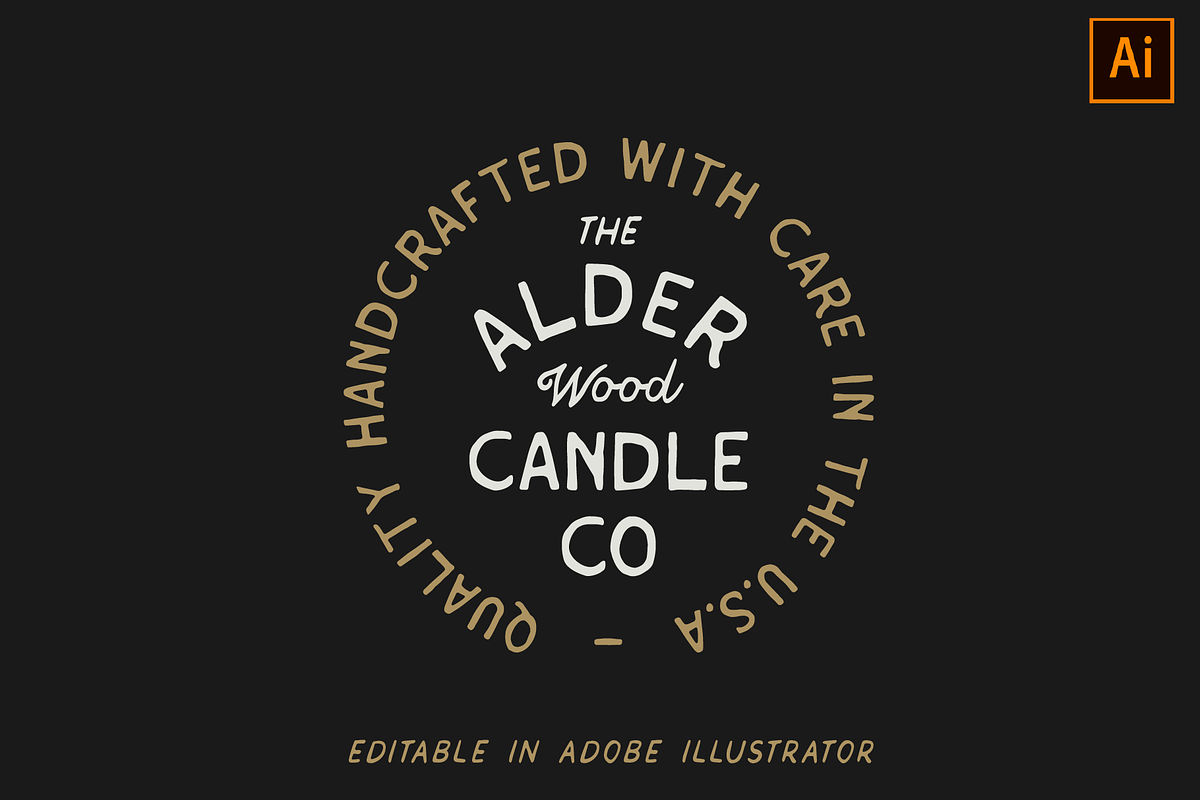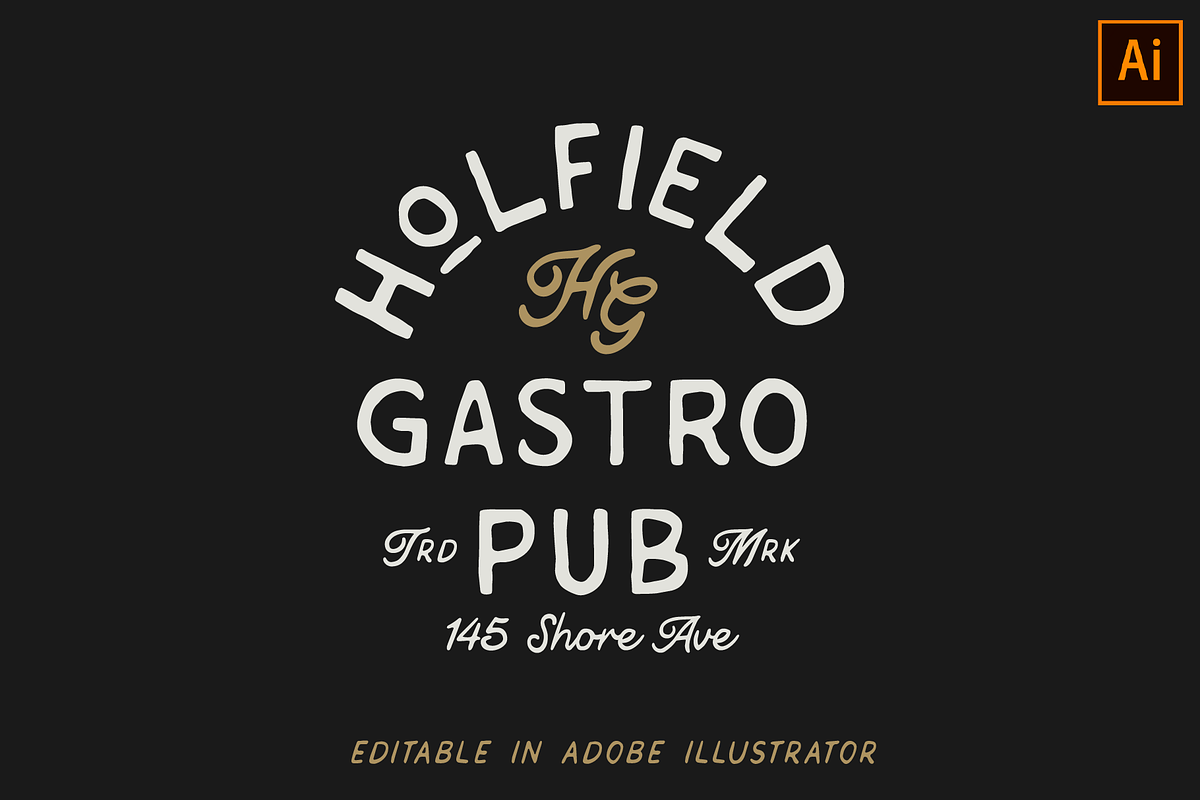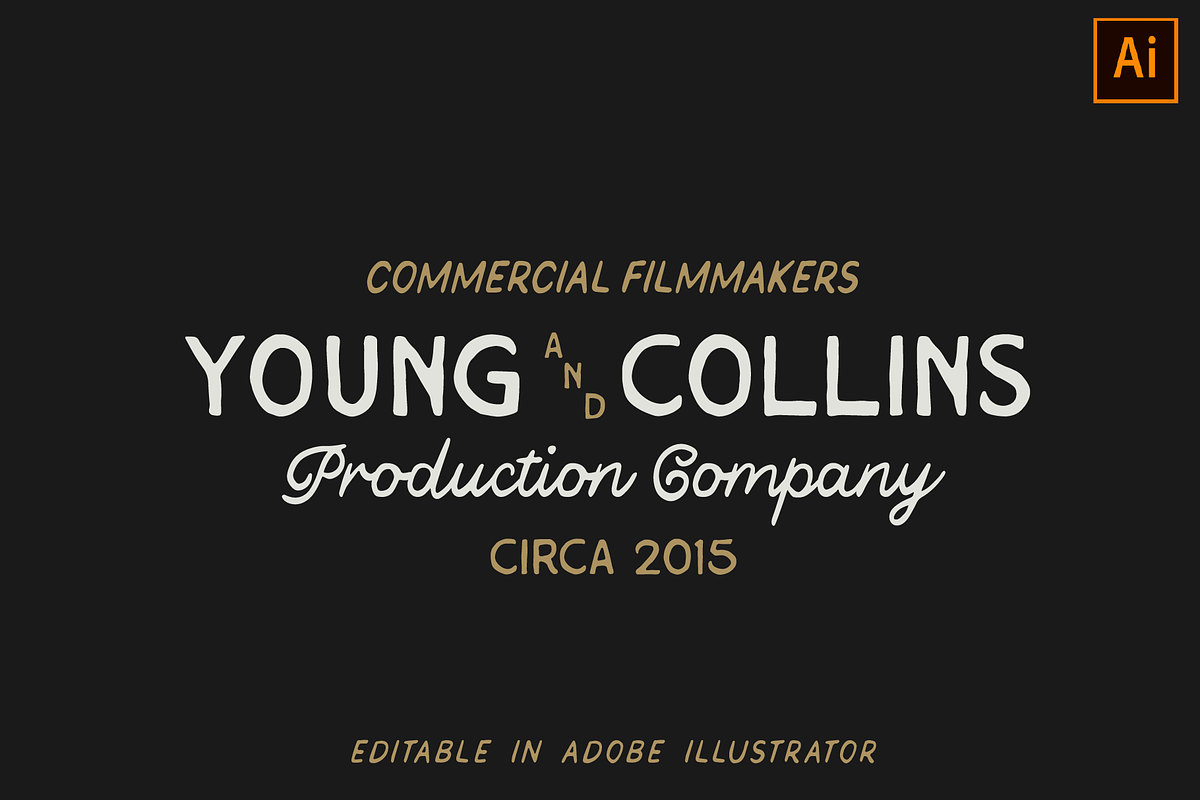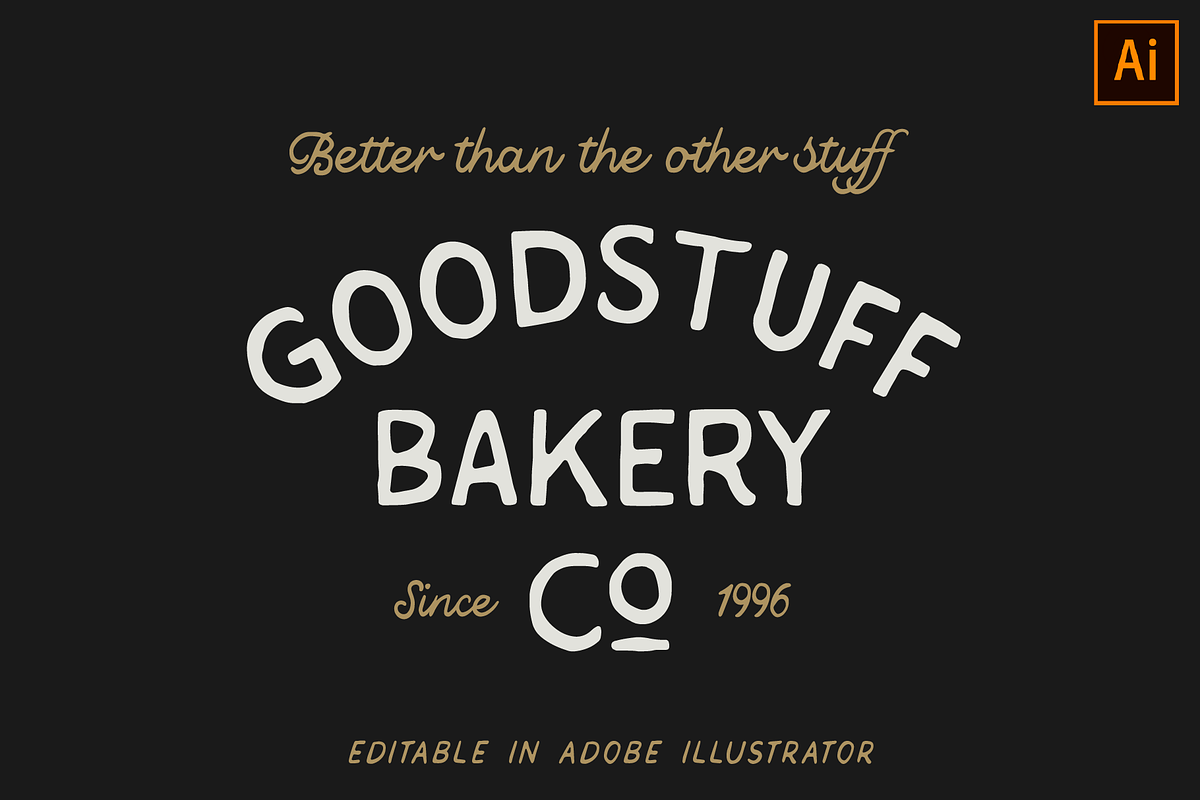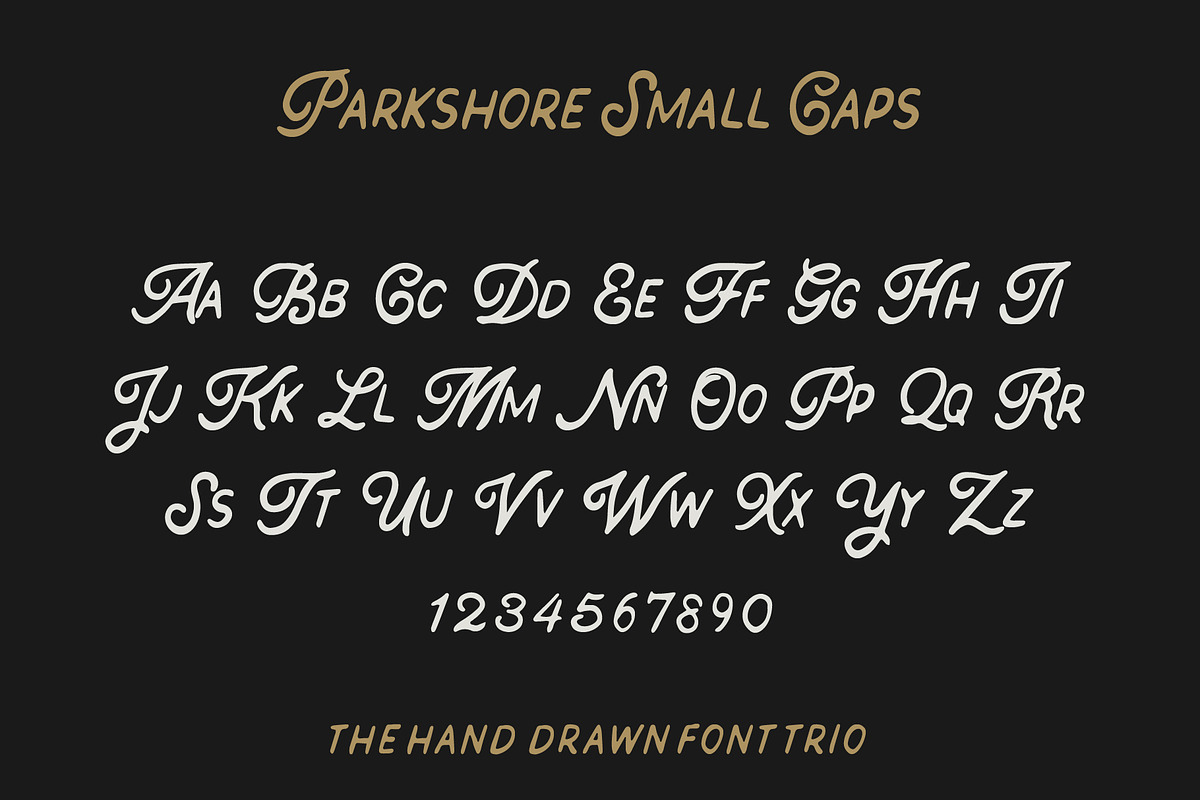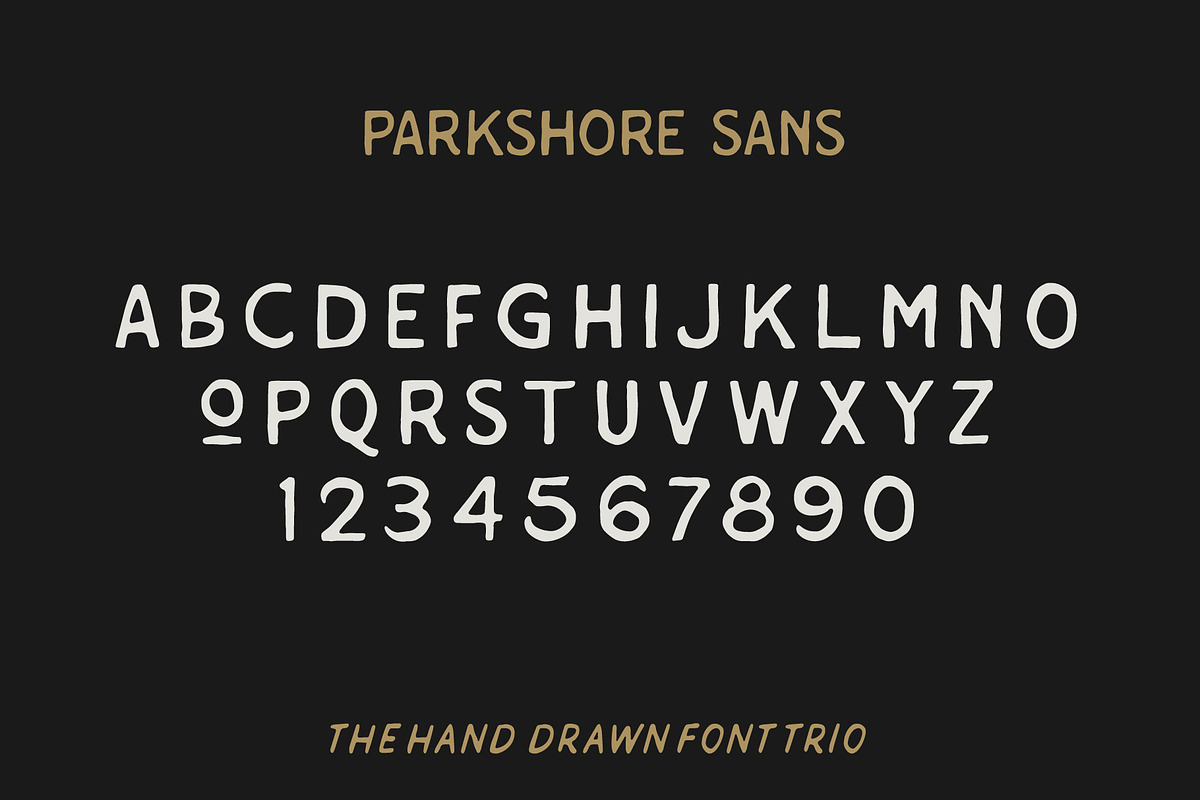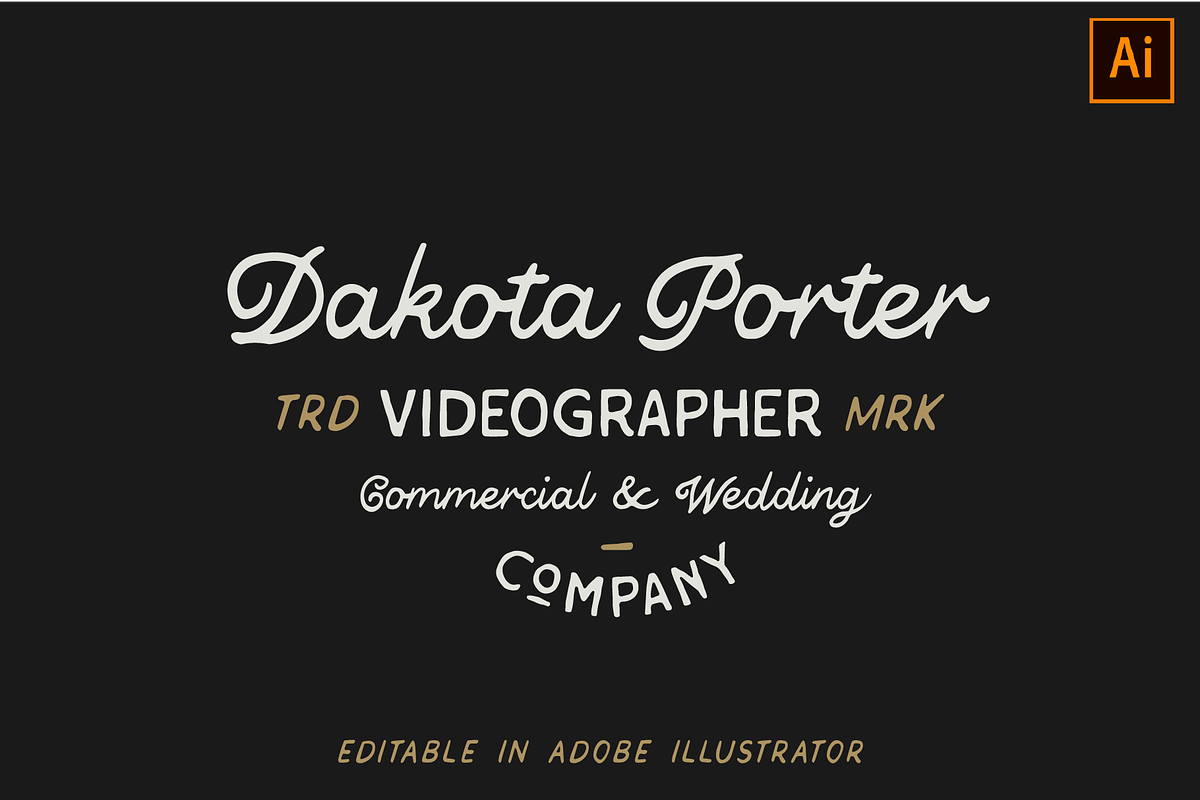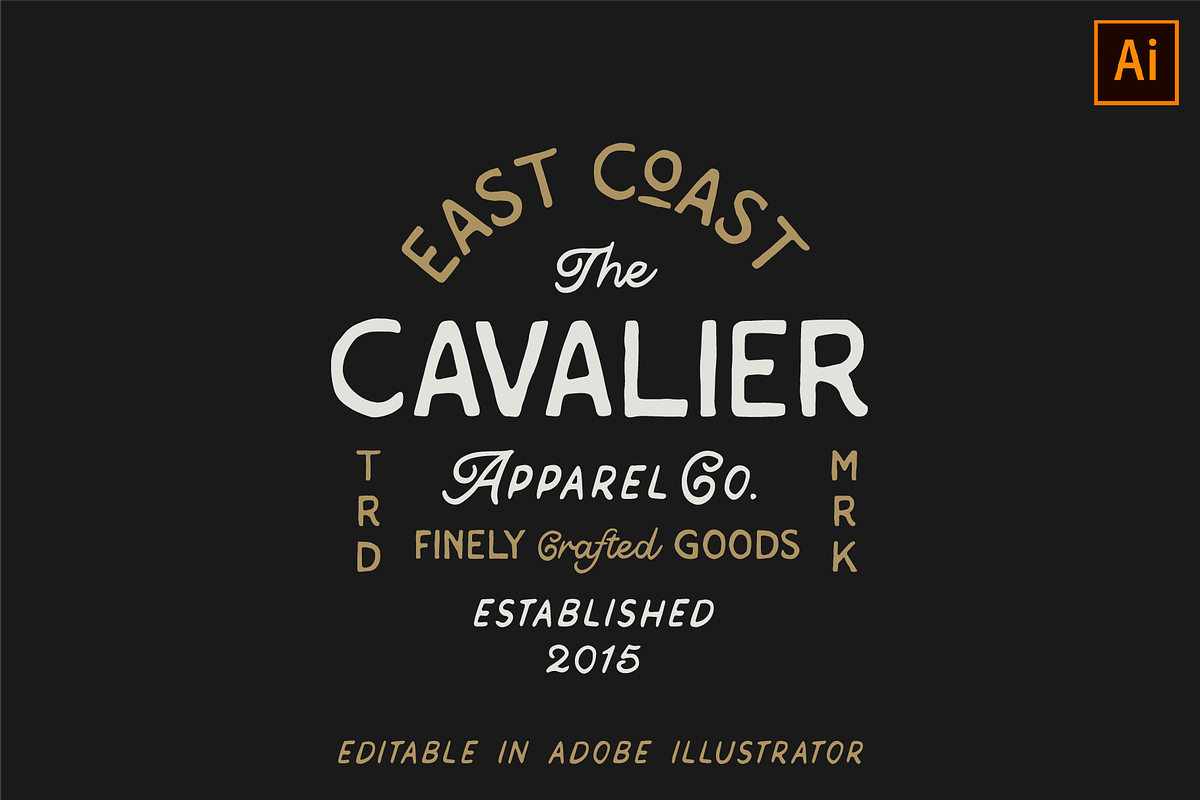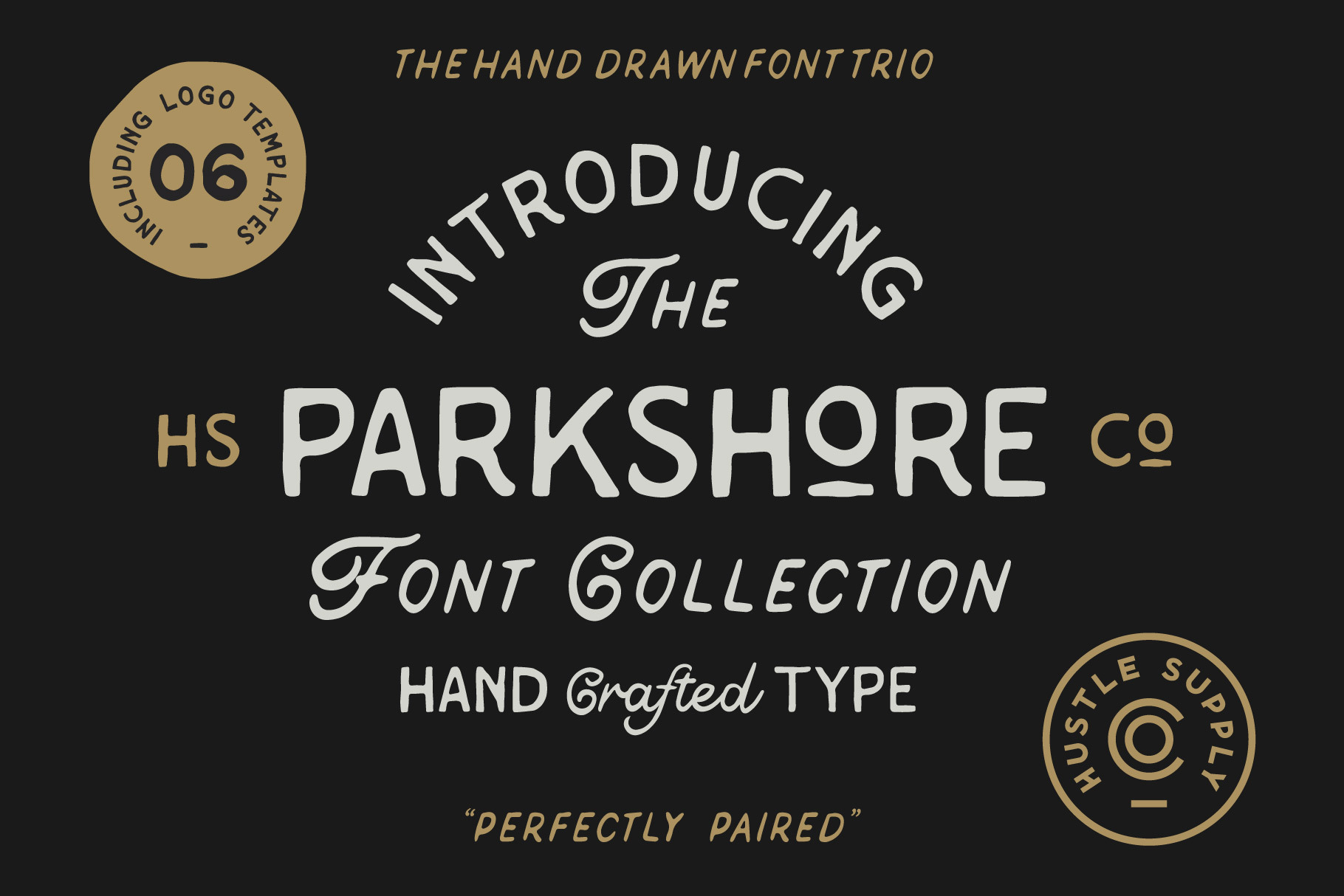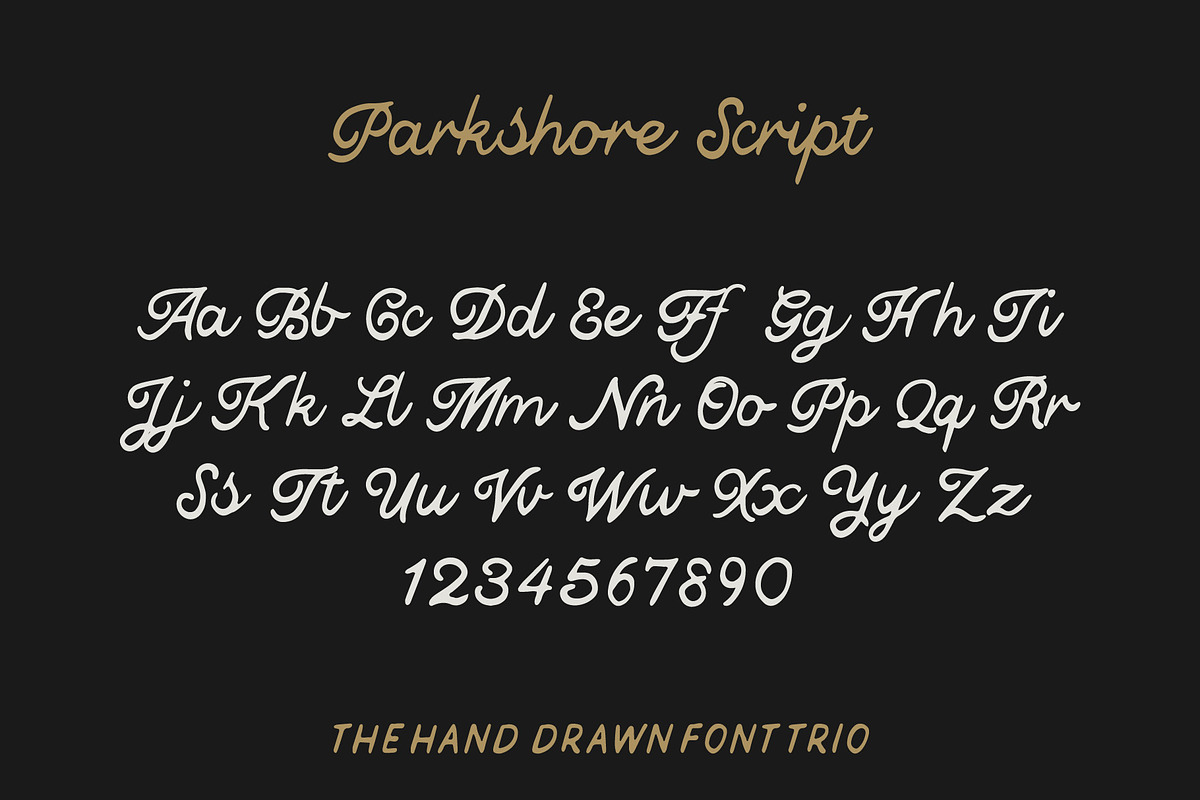
The Parkshore Font Collection
The Parkshore Font Collection contains 4 font files with 3 distinct styles that pair perfectly together. Each typeface was hand drawn with the same pens to give a consistent finish across the entire collection. This allows for the combination to look completely natural as if the entire piece of was hand drawn at once.
Logo Templates
The Parkshore Font Collection also contains 6 logo templates / type lockups for Adobe Illustrator. Use these as inspiration to build merch, wedding invitations, branding elements, advertisements, prints and more!